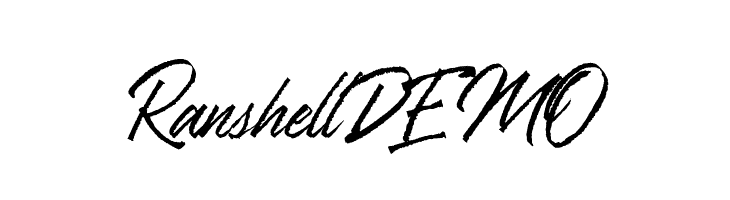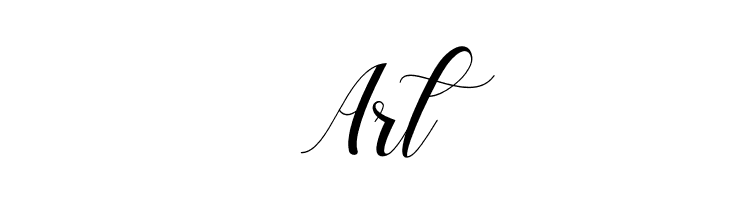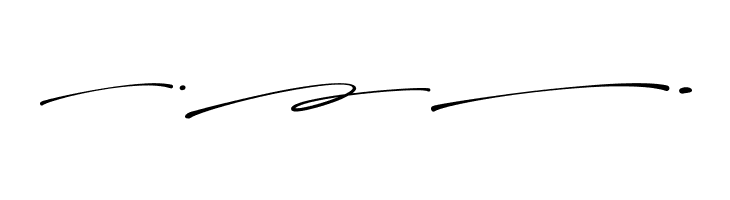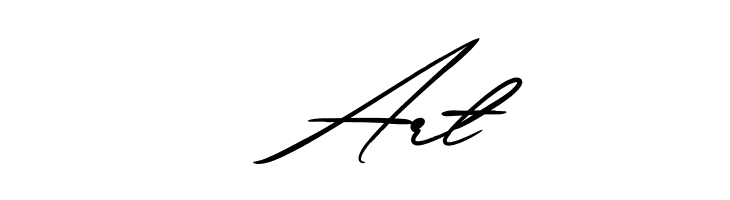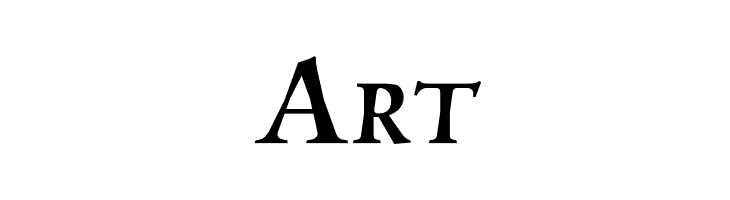
An elegant, cursive font with intricate flourishes and sweeping curves.
A flowing, cursive font with elegant, sweeping strokes and a handwritten appearance.
A dynamic and expressive script font with fluid, sweeping strokes.
A flowing, cursive font with elegant, sweeping strokes and a handwritten appearance.
A dynamic, cursive script font with bold, sweeping strokes.
An elegant, flowing cursive script with smooth, sweeping strokes.
A fluid, cursive script with elegant, sweeping strokes.
A classic calligraphic serif font with elegant, sweeping strokes.
A dynamic, cursive script font with elegant, sweeping strokes.
A bold, dynamic script font with sweeping curves and sharp angles, perfect for modern and decorative uses.